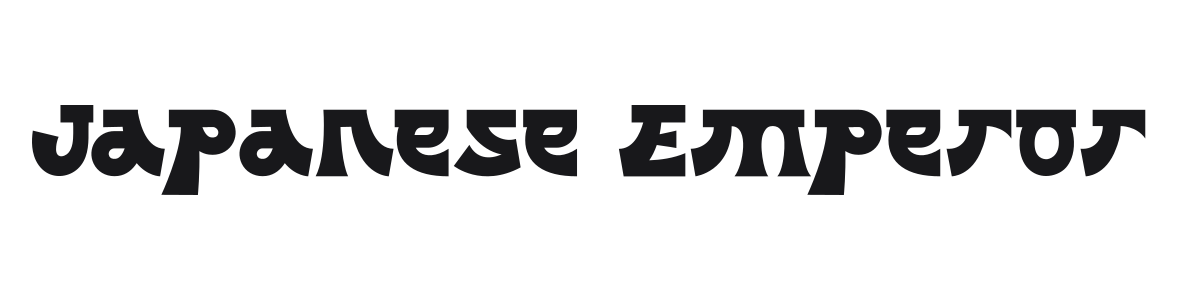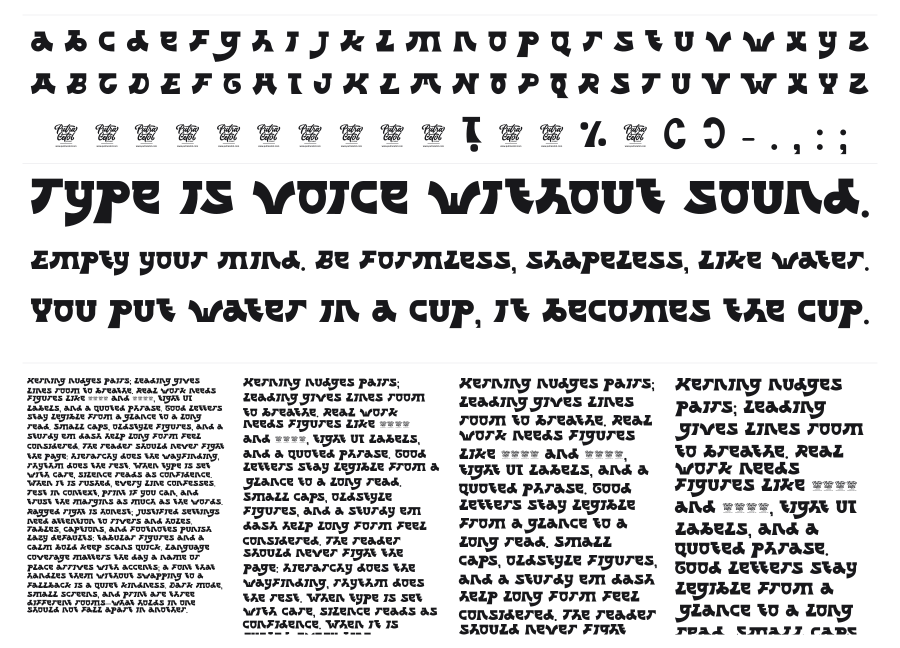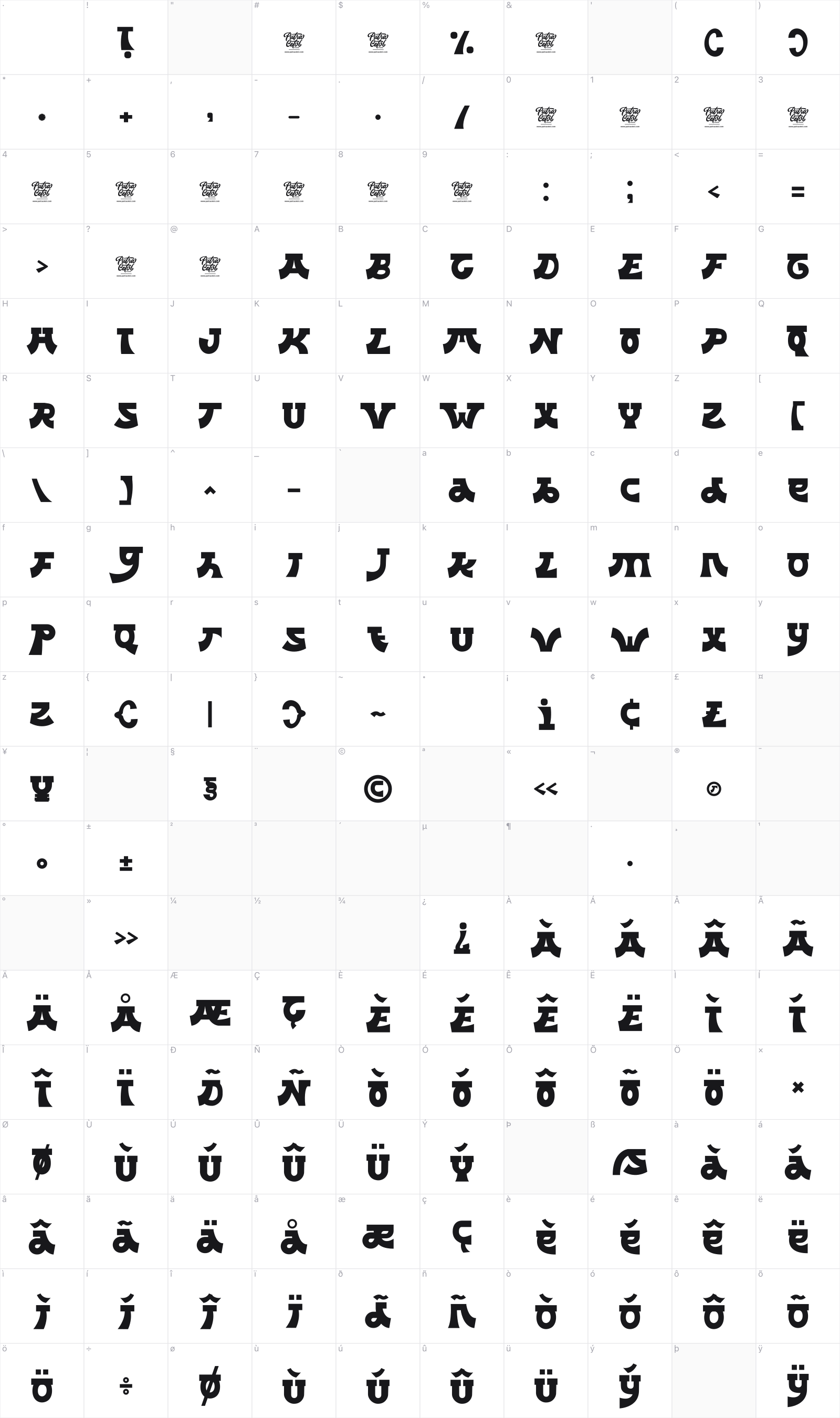
Japanese Emperor
Japanese Emperor is a bold display font that reimagines Latin characters through the visual language of Japanese brushwork and CJK typography. Deep angular notches, flat cutouts, and curved counters give each letter an unmistakably East Asian silhouette while remaining fully Latin in structure. The result sits squarely in the 1970s tradition of groovy, orientalist poster lettering.